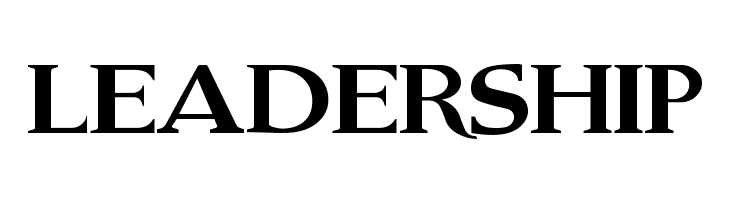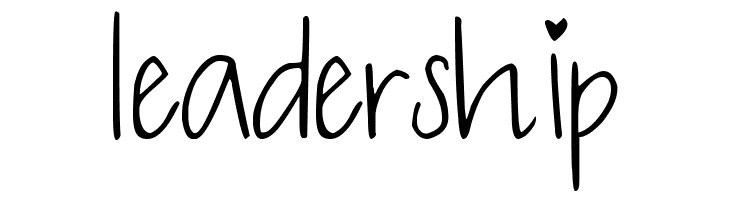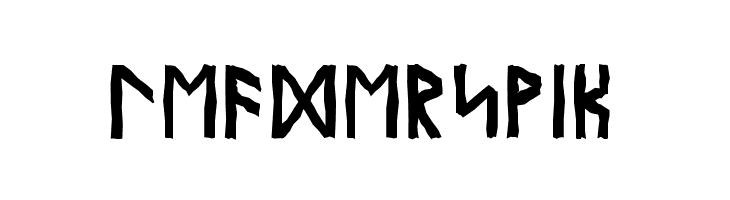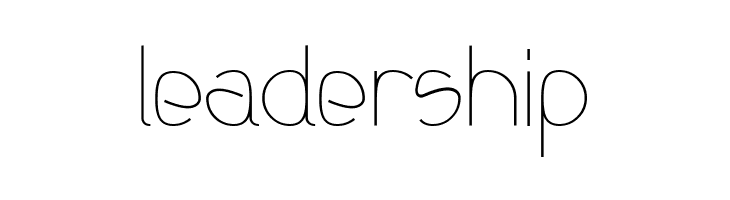
• Old Serif Gut
A classic serif font with high contrast and strong, elegant serifs.
• Old Skool Graff
A bold, graffiti-inspired font with dynamic, angular characters.
• Old Towne Vermont
• Oldchristmas Regular
• Olde Britannian
A bold, angular font inspired by ancient runic alphabets with a rugged, hand-carved look.
• Olde Stencil
A bold blackletter stencil font combining historical elegance with modern industrial flair.
• Olde Thorass
A decorative and mystical font with intricate, stylized characters.
• OldenTimes
A dynamic, slanted font with sharp, elongated strokes and a vintage calligraphic feel.
• Olgassys
A sleek, modern font with geometric lines and a minimalist aesthetic.
• OLIVE CHARMING
A playful, handwritten font with a modern and casual style.
• Oliver Richards
A bold, expressive brush script with dynamic strokes and a textured, handcrafted appearance.
• OMOTENASHI__G
A bold, rounded, and modern font with tall, narrow characters.
• only revolver tfb
A decorative font using revolver silhouettes for each character.
• OnStrike NBP
• Oops
A playful, dripping paint-style font with irregular, artistic shapes.
• Open Egmont Kapitalen [DEMO]
A classic serif font with high contrast and elegant, elongated lines.
• OpenBaybayin
A modern, geometric interpretation of the traditional Baybayin script.
• OpenHatch
A playful, handwritten font with dynamic strokes and a casual, creative flair.
• OpenLounge
An artistic and bold font with dramatic strokes and sharp serifs.
• Opificio Serif
A modern, geometric font with clean lines and balanced characters.
• Opificio Serif Bold
A bold, modern serif font with geometric influences and strong strokes.
• Opificio Serif Rounded
A rounded serif font blending traditional elegance with modern softness.